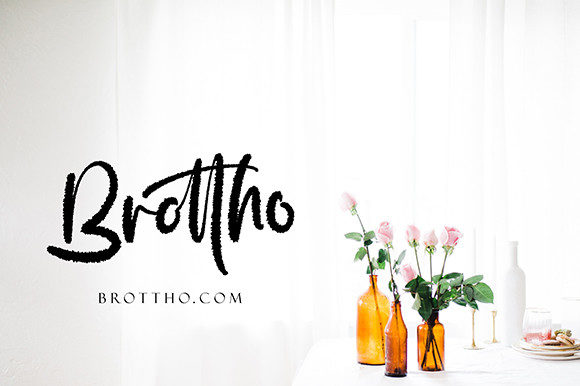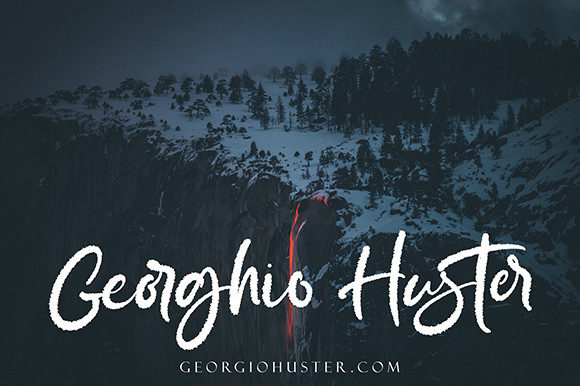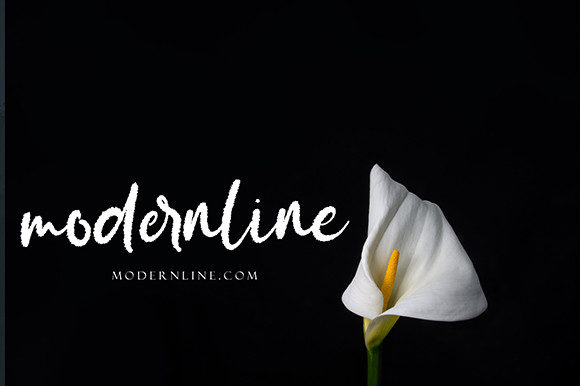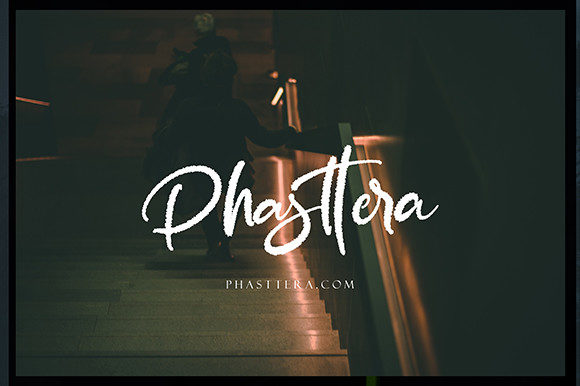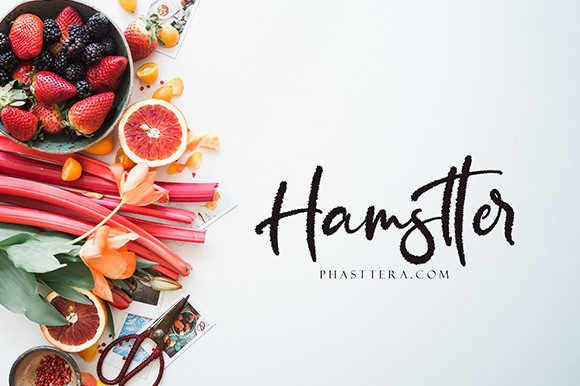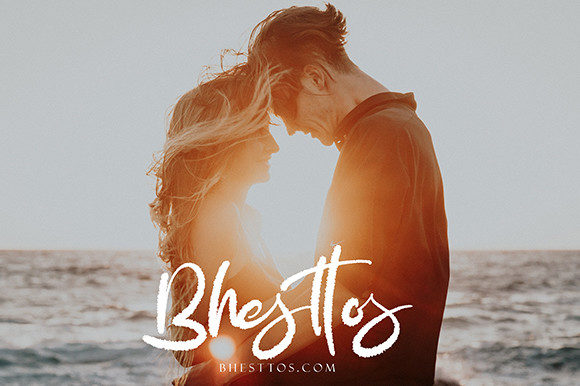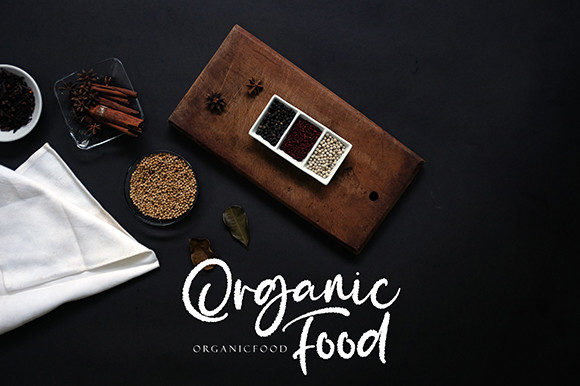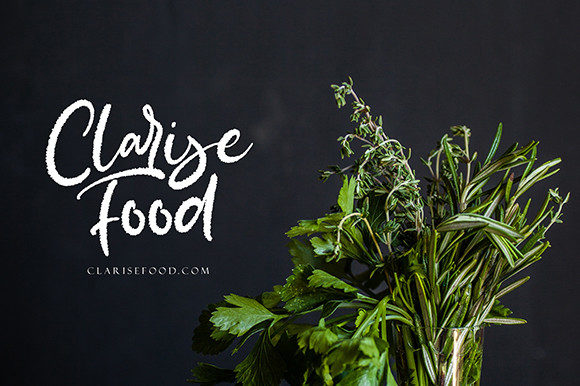
Seritton Font
About Seritton Font
Seritton is a beautiful, paint brushed handwritten font. Fall for its ravishing style and use it to create gorgeous designs. Seritton is PUA encoded which means you can access all of the glyphs and swashes with ease!